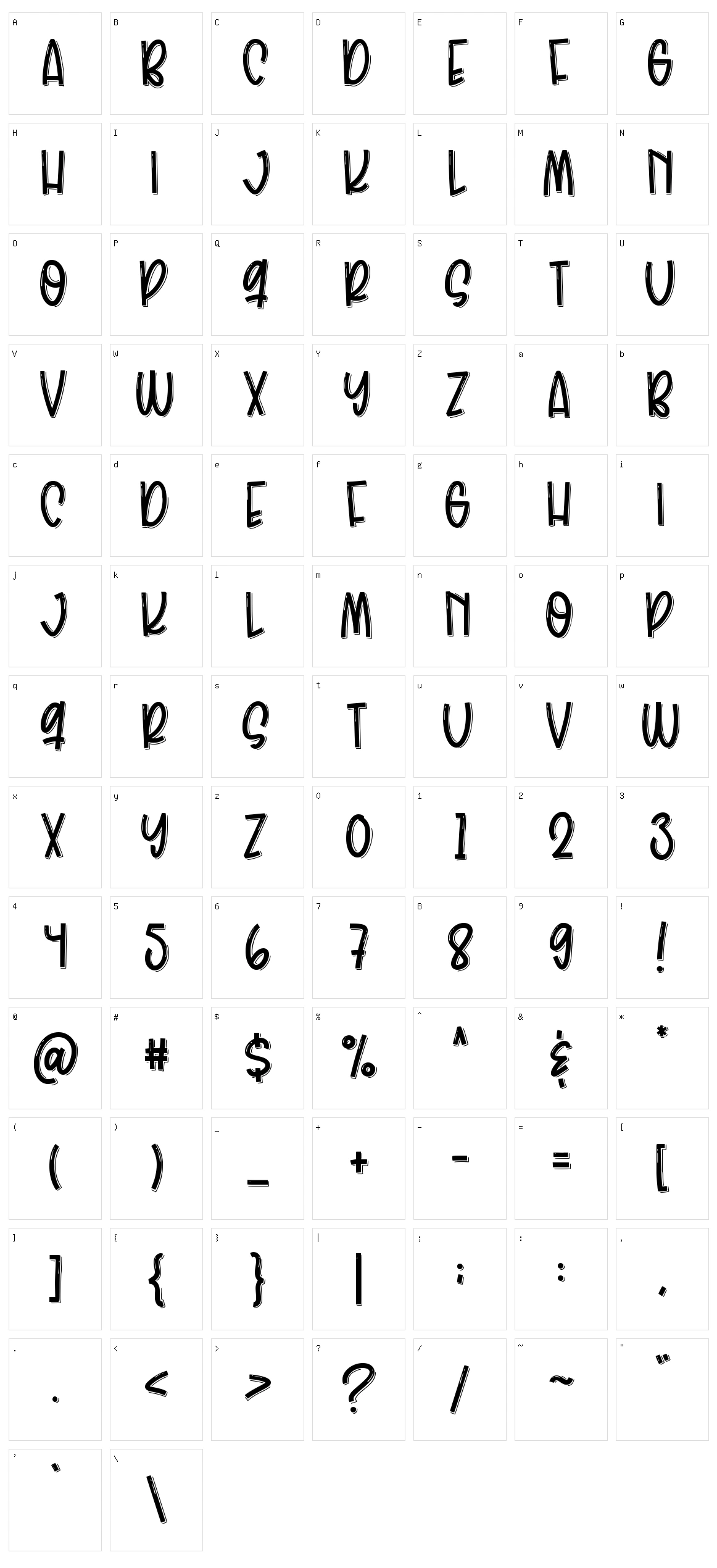
SOREDONA
- layered handwritten font -
It is great for branding, packaging, quotes, t-shirt design, card, banner, cutting, silhouette, and anything of craft project.